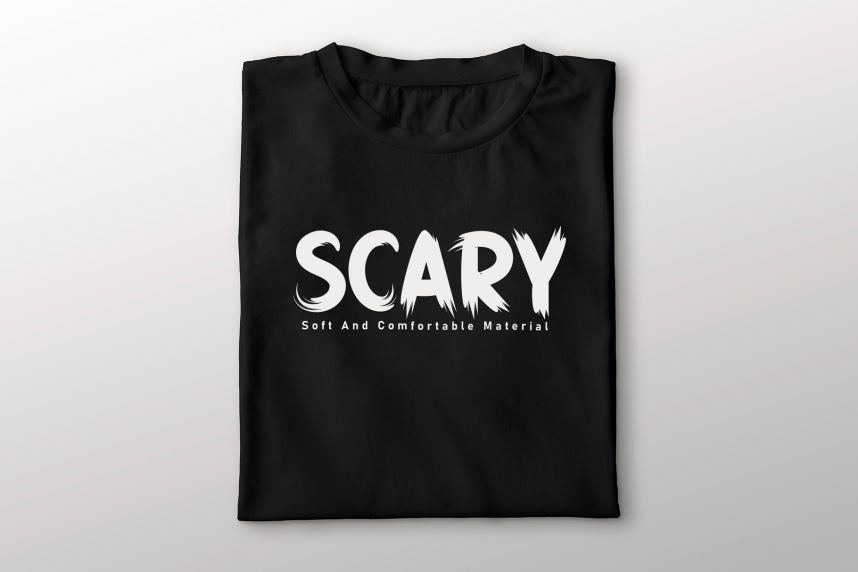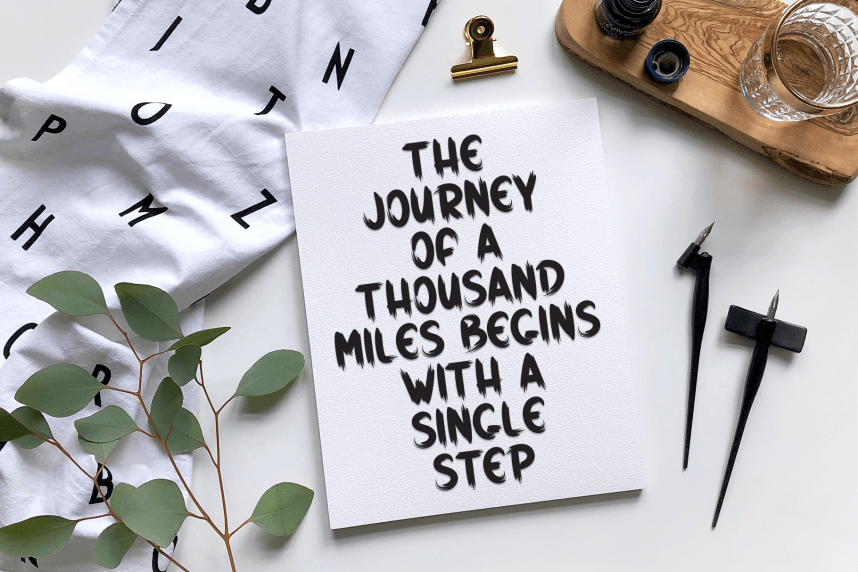
Ghost Window Brush Font
Ghost Window Brush Font is a sweet and friendly handwritten display font. Cute and fun, this font is ideal for writing wedding invitations, cards, or any other design that might need a playful touch!